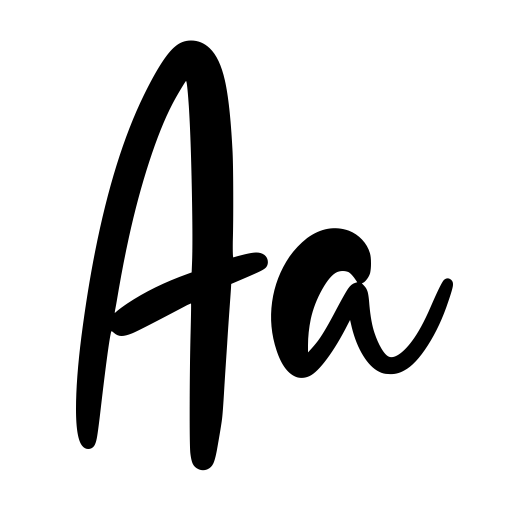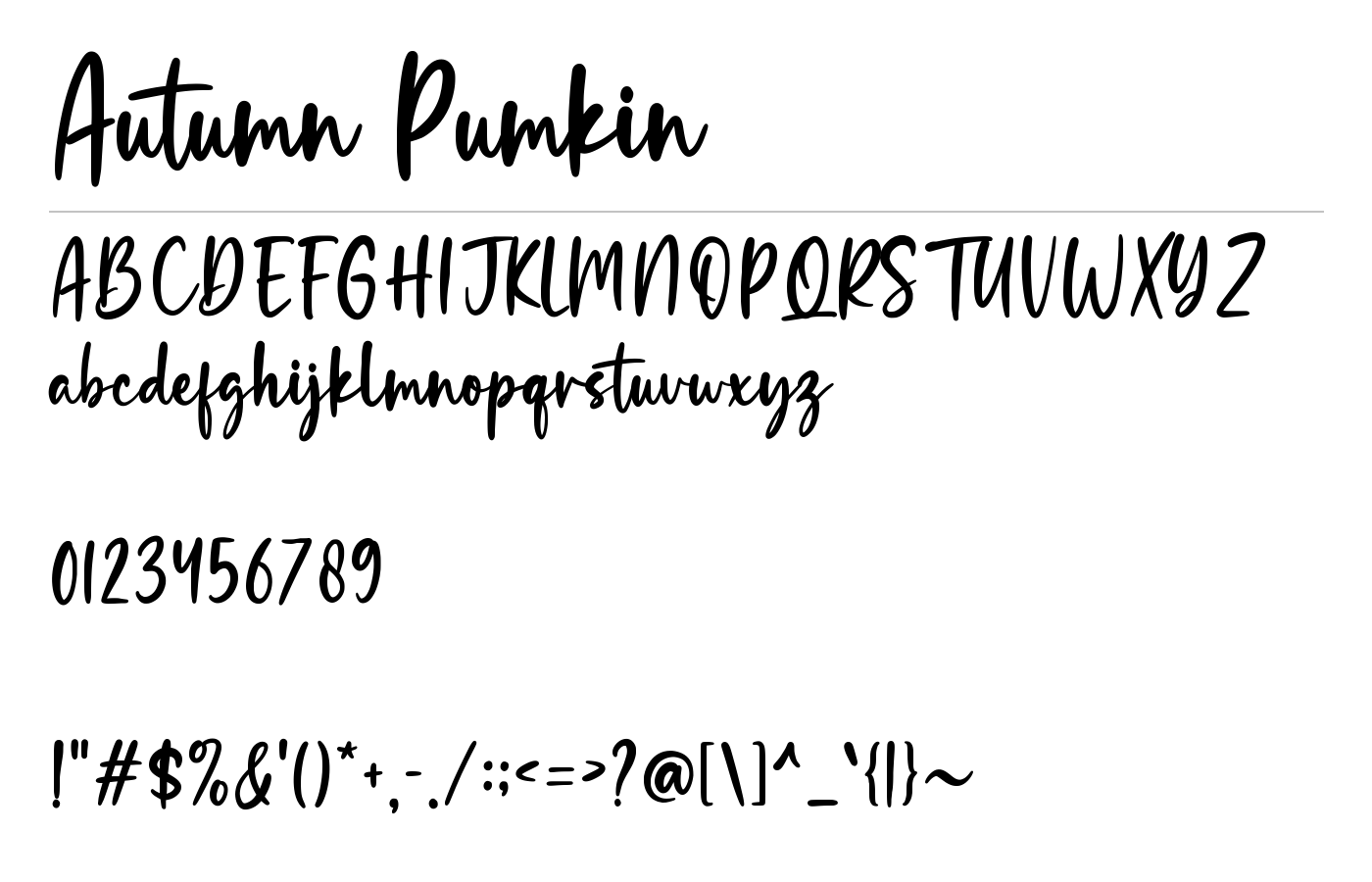
Autumn Pumkin is a lively and friendly handwritten script font with a casual yet polished feel. Its medium weight strokes and tall, narrow letterforms create an approachable and modern style perfect for invitations, branding, and playful editorial designs. This font works best where warmth and personality are needed, adding charm and a personal touch to creative projects.
Autumn Pumkin Font
About Autumn Pumkin Font